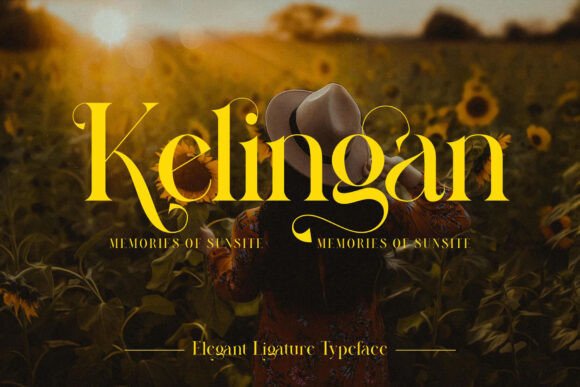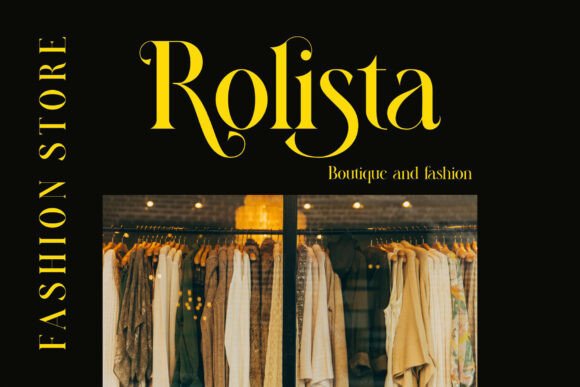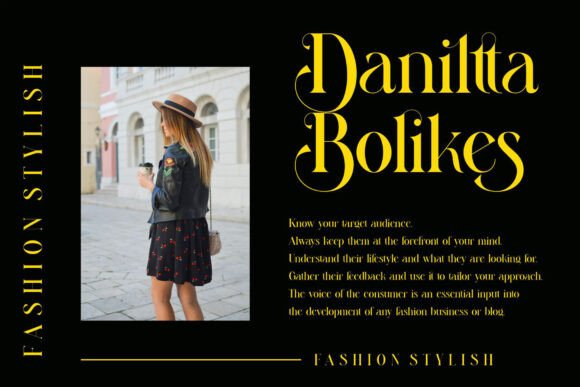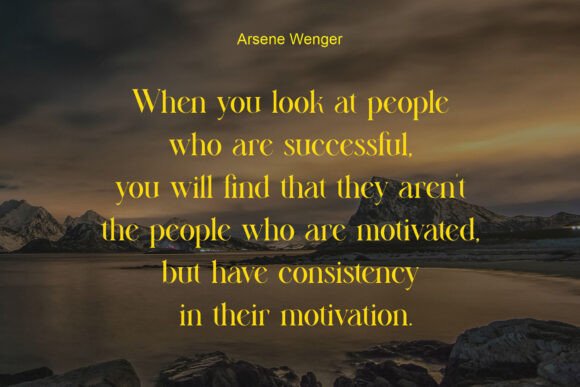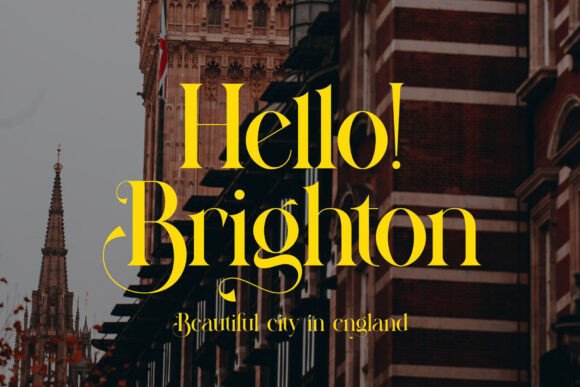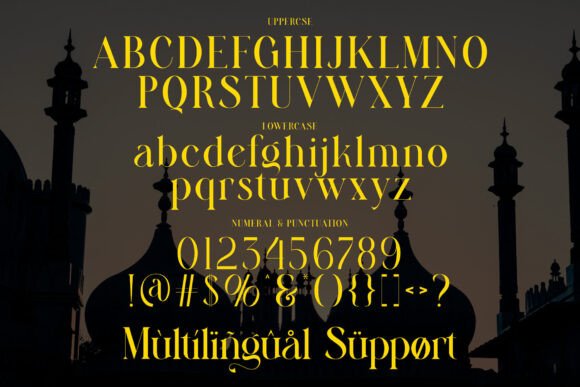
Discover the Elegance of Bilgatte Font: A Refined Serif Typeface for Sophisticated Designs
In the world of typography, finding the perfect font that combines sophistication, readability, and aesthetic appeal can be a daunting task. However, for designers and crafters looking for a typeface that elevates their projects, Bilgatte is an exceptional choice. This refined serif typeface is not only beautiful but also versatile, making it suitable for a wide range of design needs.
The Unique Features of Bilgatte Font
Bilgatte stands out with its carefully crafted letterforms and stylish ligatures. Ligatures, which are special characters that combine two or more letters into a single glyph, are a key feature of this typeface. These ligatures create smooth connections between characters, adding a touch of elegance and fluidity to any text. This feature is particularly beneficial for designs that require a high level of sophistication, such as luxurious branding, high-end invitations, and editorial layouts.
Another notable feature of Bilgatte is its serif design. Serif typefaces are known for their classic and timeless appearance, making them a popular choice for both print and digital media. The serifs in Bilgatte add a level of refinement and readability, ensuring that the text is clear and legible, even at smaller sizes.
Versatility of Bilgatte Font
The versatility of Bilgatte is one of its most compelling attributes. This typeface can seamlessly transition across various design projects, including:
- Luxurious Branding: Create a lasting impression with Bilgatte’s elegant and sophisticated appearance, perfect for high-end brands looking to convey luxury and refinement.
- Editorial Layouts: Enhance the readability and aesthetic appeal of editorial content, such as magazines, newspapers, and blogs, with Bilgatte’s classic serif design and beautiful ligatures.
- Modern Websites: Elevate the typography of your website with Bilgatte, ensuring a sophisticated and professional online presence.
- High-End Invitations: Add a touch of elegance to your invitations, making them perfect for weddings, galas, and other formal events.
Why Choose Bilgatte Font?
Choosing Bilgatte for your design projects comes with numerous benefits:
- Aesthetic Appeal: Its refined serif design and stylish ligatures provide a unique blend of sophistication and elegance.
- Readability: Bilgatte ensures that your message is delivered with clarity, making it suitable for both headlines and body text.
- Versatility: It can be used across a wide range of design projects, from print to digital media.
- Functionality: Despite its aesthetic appeal, Bilgatte does not compromise on functionality, making it an ideal choice for projects that require both style and substance.
| Author | Alfinart |
In conclusion, Bilgatte font is a refined serif typeface that offers a unique blend of sophistication, readability, and aesthetic appeal. Its carefully crafted letterforms, stylish ligatures, and versatile style make it an ideal choice for designers and crafters looking to elevate their projects. Whether you are working on luxurious branding, editorial layouts, modern websites, or high-end invitations, Bilgatte ensures that your message is delivered with both grace and clarity. By choosing Bilgatte, you are not just selecting a font; you are investing in a typographic experience that combines elegance, functionality, and timeless appeal.
So, if you are looking to add a touch of sophistication and elegance to your designs, look no further than Bilgatte font. Explore its features, and discover how it can transform your projects into visually stunning and highly readable works of art.